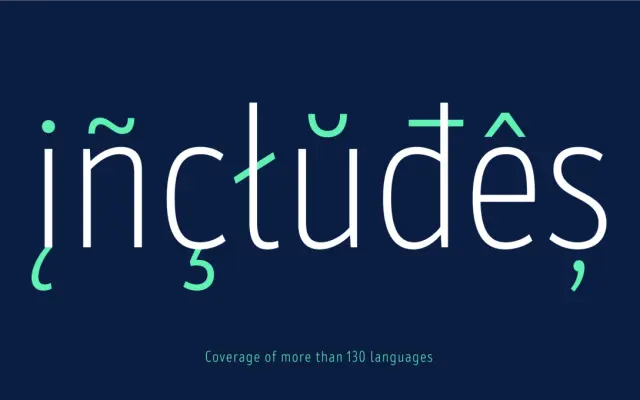
Mozer
Fontfabric · Svetoslav Simov, Ani Dimitrova, Mirela Belova, Nikolay Petroussenko · 2019
A semi-condensed neo-grotesque from Fontfabric with a generous x-height and subtle ink traps, covering Latin, Cyrillic and Greek across 16 styles.
Released in 2019 by Fontfabric, Mozer is built for economical setting with its moderately narrow proportions and carefully calibrated forms that hold up in both headlines and extended text. Its 825-glyph set spans Latin Extended, Cyrillic and Greek, giving it reach across more than 100 languages. The full OpenType feature set includes stylistic alternates, ligatures, contextual alternates and a complete range of figure styles.
Described explicitly as a neo-grotesque sans-serif; the semi-condensed proportions, generous x-height, and moderate contrast are characteristic of the neo-grotesque tradition in the vein of Bureau Grot or URW DIN.